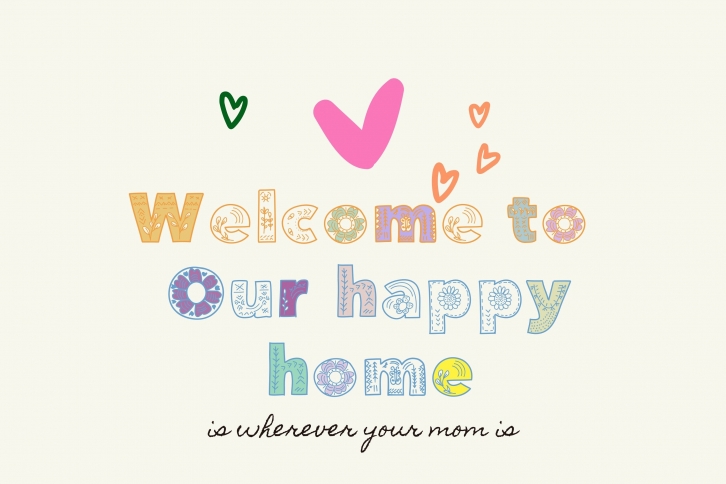
Welcome to Our Happy Home is a sweet and thick lettered decorative font. It embodies playfulness and authenticity and is the perfect choice for any children activity or school project.